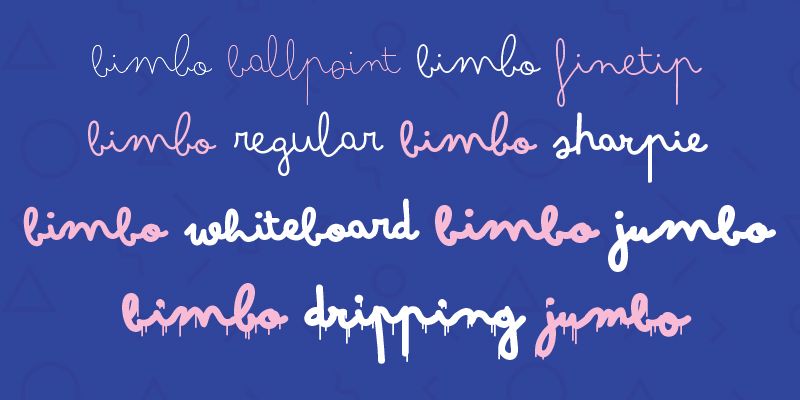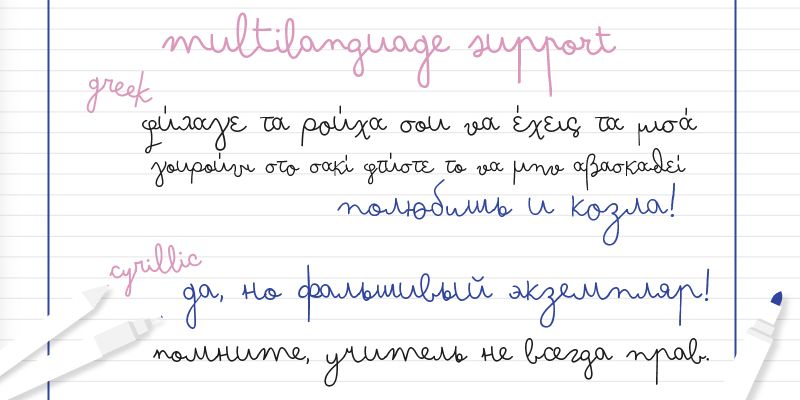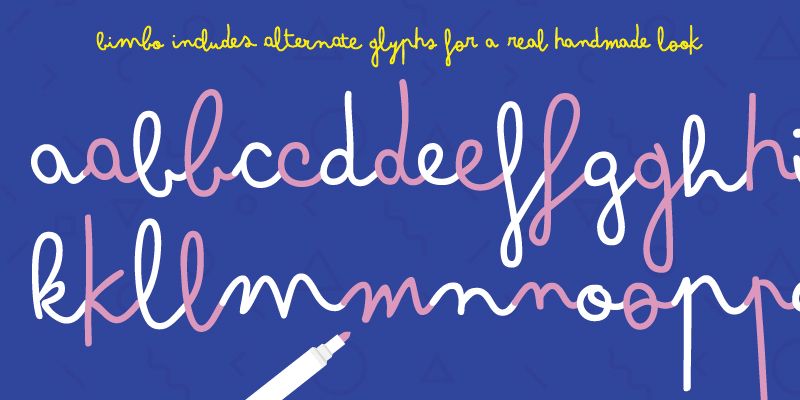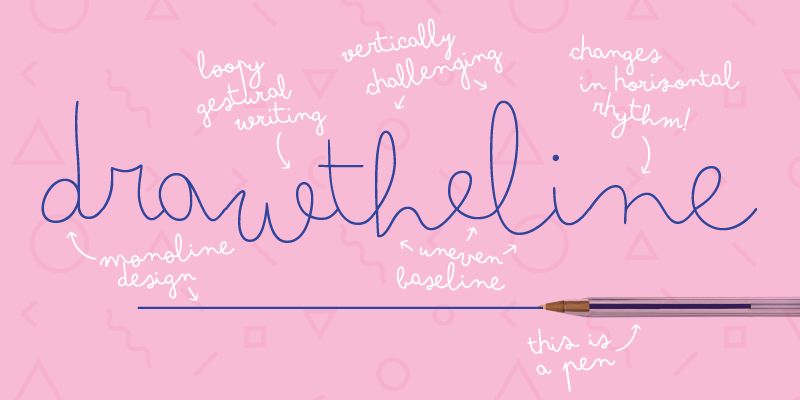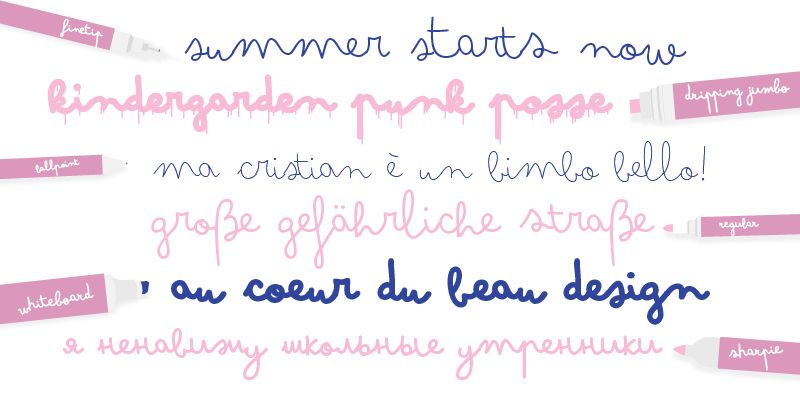
Bimbo is a monoline script font family created by Francesco Canovaro. The typeface is characterized by a handmade spontaneous aesthetic, essentially for display use, minimal lettering and logos. This handwritten sensibility is enhanced by the built-in letter swapping open type feature that makes sure double letters are always different from one to another. Open counters and a monoline design allow for great readability at small sizes, making Bimbo the ideal font for creating fake handwritten notes and metatextual jokes.
The typeface includes six weights and over 300 glyphs to cover over 70 languages using the latin, greek and cyrillic alphabets.